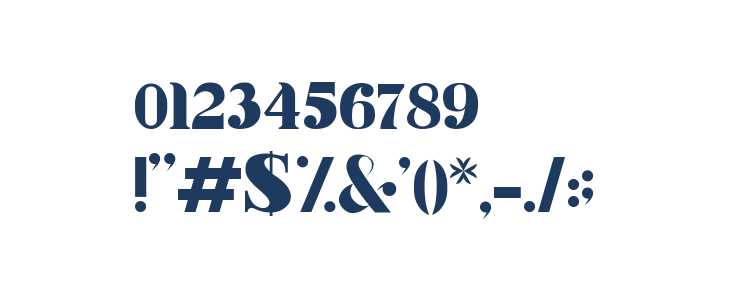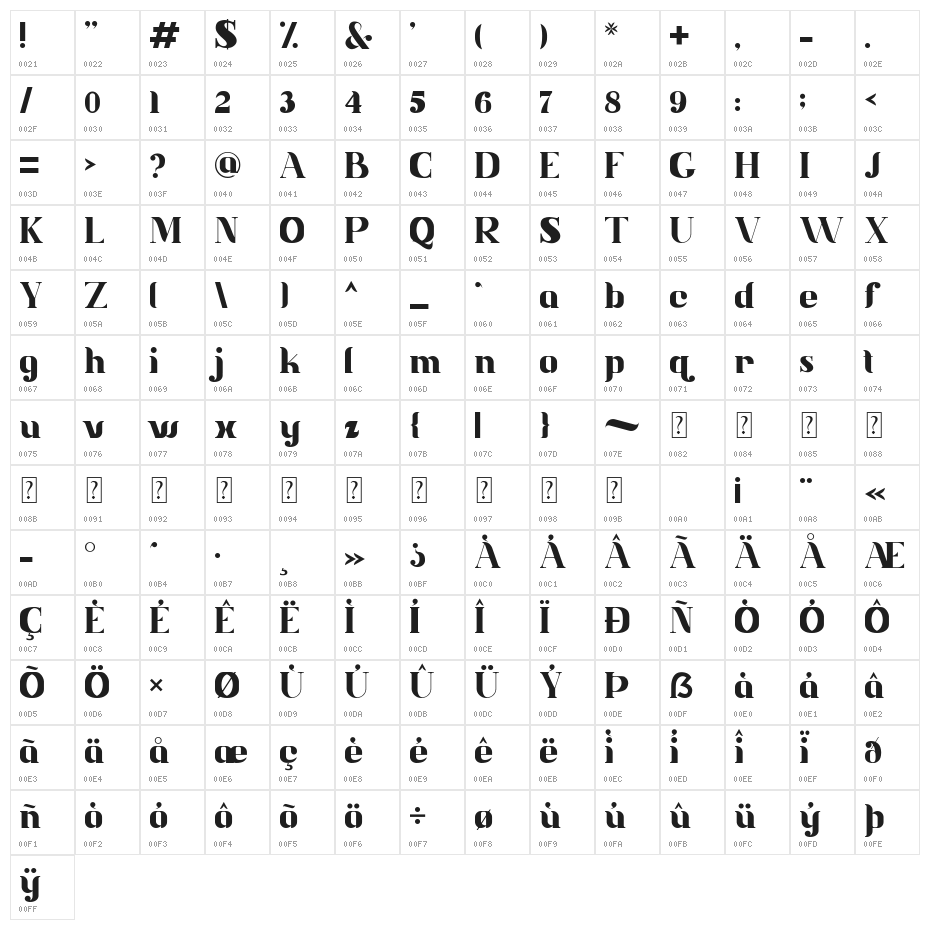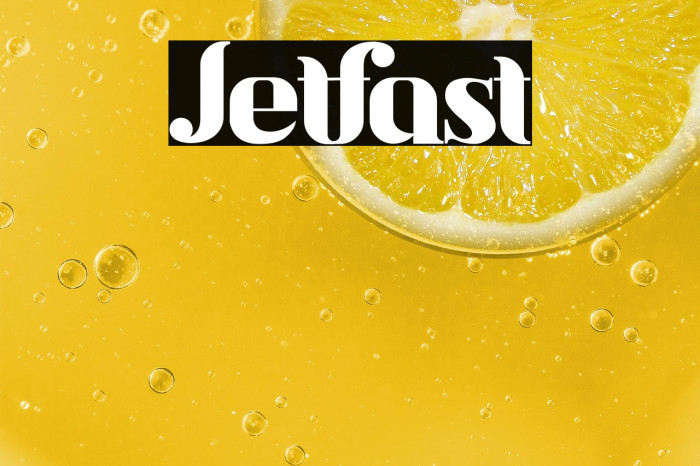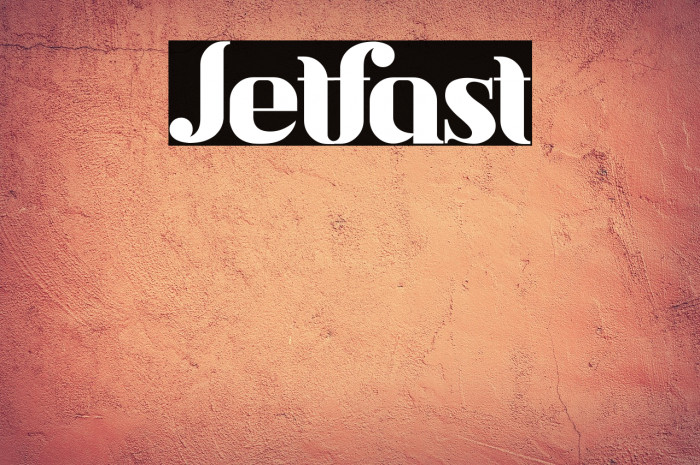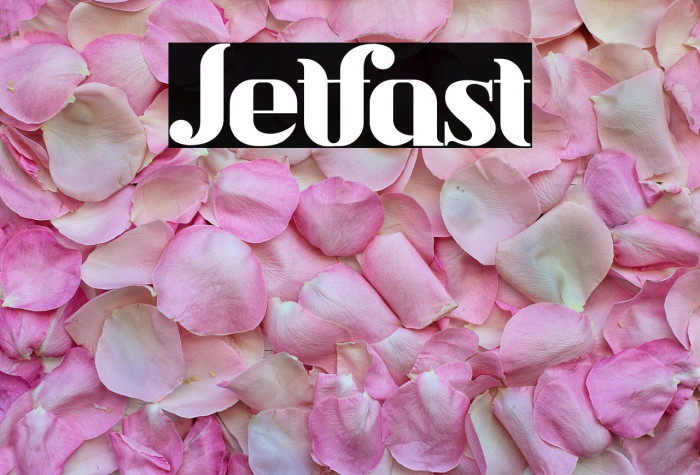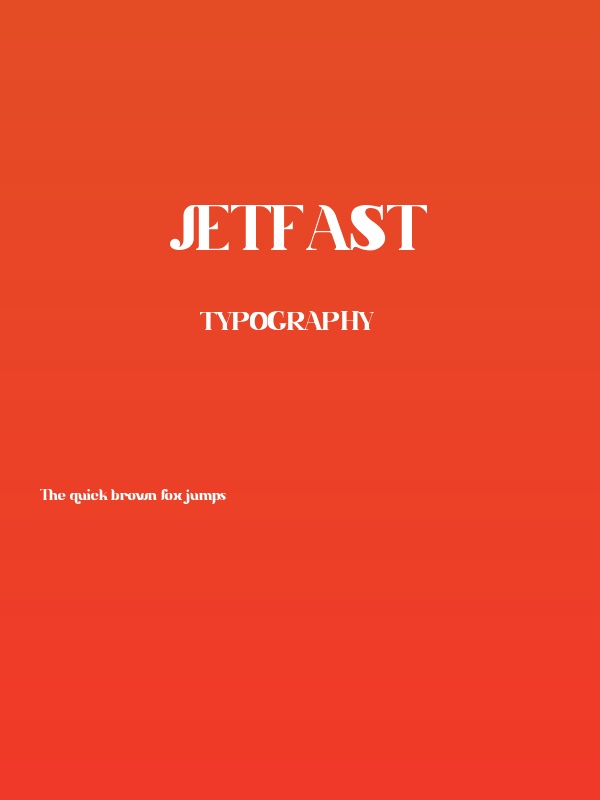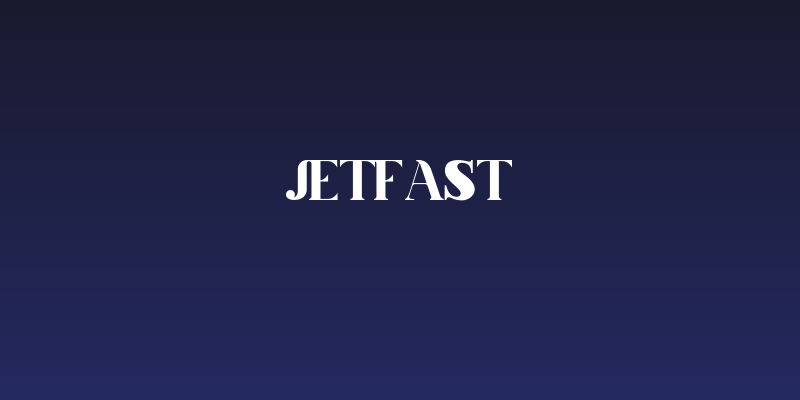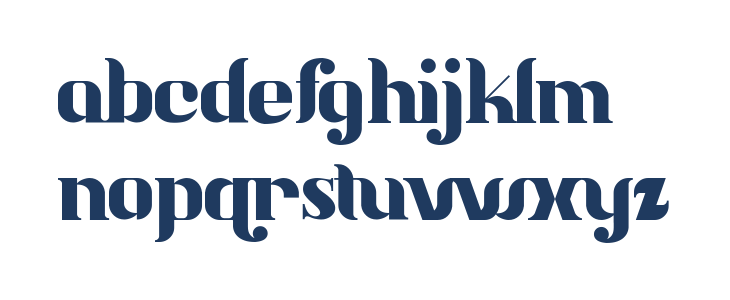
Jetfast Font
Jetfast Description
This font features a bold and striking design with a modern twist. The uppercase letters have a unique blend of sharp angles and smooth curves, creating a dynamic and eye-catching appearance. The lowercase letters maintain this boldness, with some characters exhibiting distinctive flourishes. The numerals are equally bold, ensuring they stand out in any context. Special characters are designed with the same attention to detail, making them perfect for creative and impactful designs. The overall style is both modern and decorative, suitable for a variety of applications.
| Overall Style | Modern, Decorative |
| Proposed Projects | This font is perfect for branding projects, poster designs, and any creative work that requires a bold and modern aesthetic. |